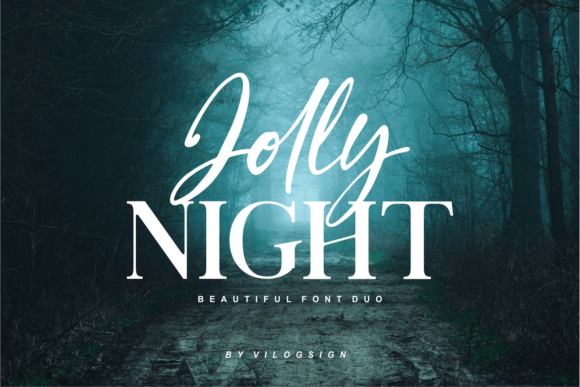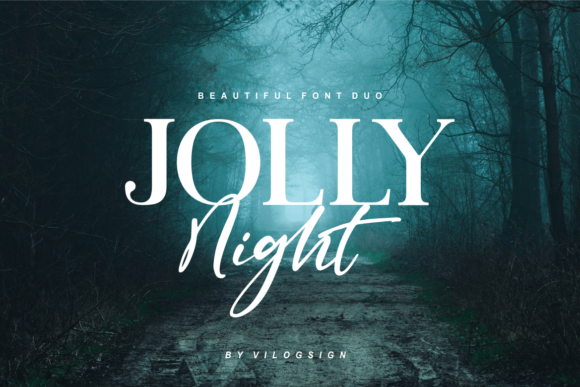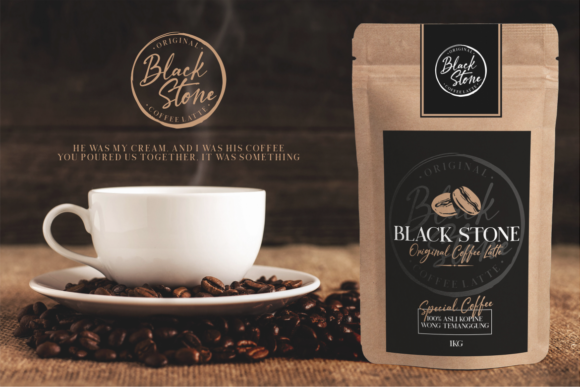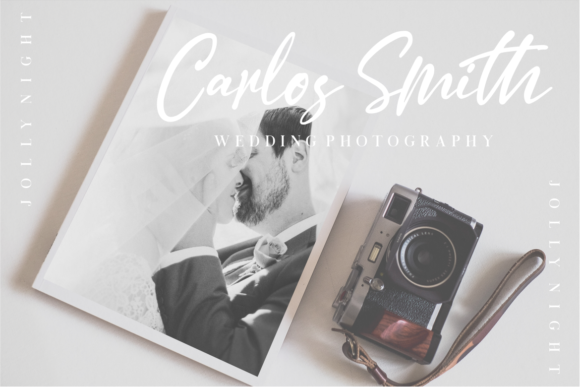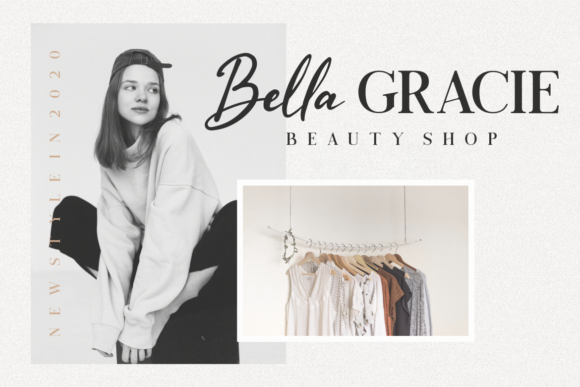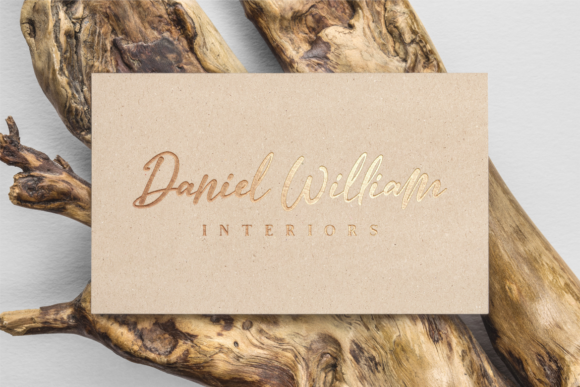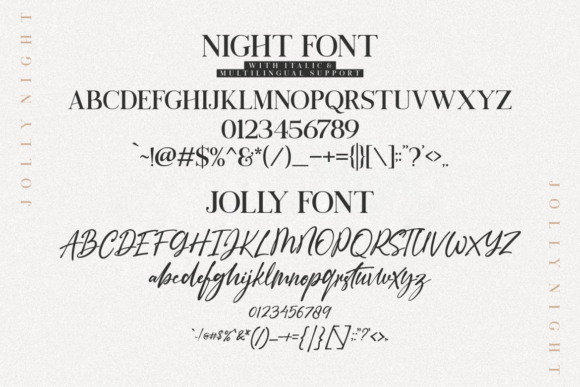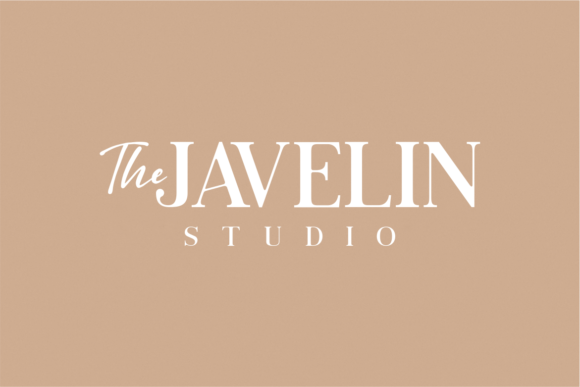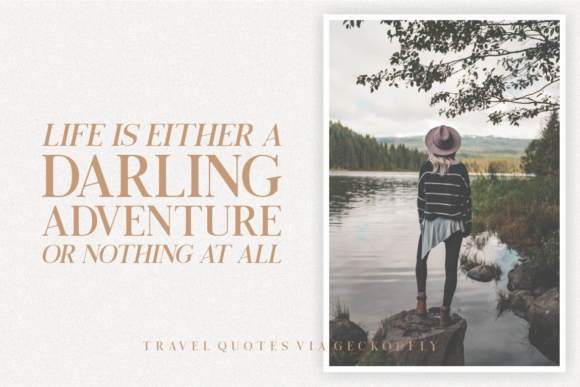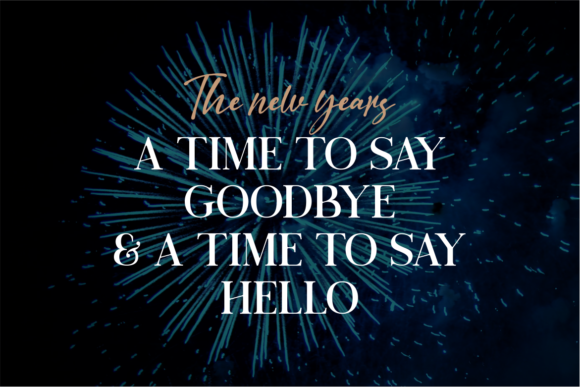
Jolly Night Duo Font
About Jolly Night Duo Font
Jolly Night is a delicate and charming font duo featuring a smart serif and a beautiful script. It will take any design project to the next level. Combine these two gorgeous fonts and achieve stunning results.